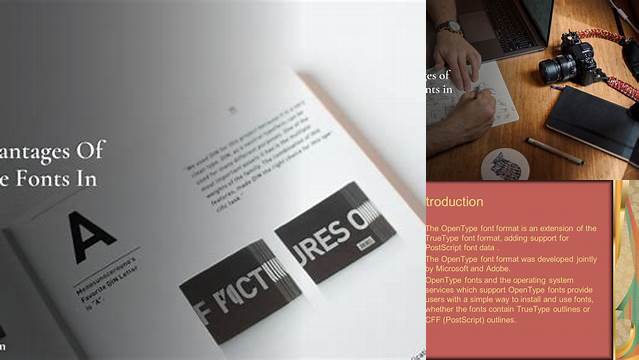
OpenType Fonts: Meaning, Uses, And Advantages
Hey guys! Ever wondered what those .otf files are that you see when downloading fonts? Let's dive into the world of OpenType fonts and explore what they mean, how they're used, and why they're so awesome. Get ready to become a font expert!
What is OpenType Font Technology?
OpenType fonts are a big deal in the world of typography. Think of them as the next-generation font format, building upon older formats like TrueType. But what exactly is OpenType font technology? It's basically a digital font format developed by Microsoft and Adobe. The cool thing about OpenType fonts is that they can contain either PostScript outlines or TrueType outlines. This means they’re super versatile and can be used on different operating systems without any hassle. Plus, they support a much larger character set compared to older formats, allowing for more glyphs, ligatures, and other fancy typographic features.
So, OpenType fonts aren't just about making text look pretty; they're about making it more functional and expressive. They help designers achieve a higher level of typographic sophistication, which is why they're the go-to choice for professional design projects. The technology behind OpenType fonts is continually evolving, with new features and improvements being added to meet the demands of modern design.
The History and Evolution of OpenType Fonts
To really understand OpenType fonts meaning, it’s helpful to know where they came from. The history of OpenType fonts dates back to the mid-1990s when Microsoft and Adobe teamed up to create a font format that could overcome the limitations of existing formats like TrueType and Type 1. TrueType was great, but it lacked advanced typographic features, while Type 1 fonts had these features but weren't cross-platform compatible. OpenType fonts were designed to bridge this gap.
Over the years, OpenType fonts have evolved significantly. Early versions focused on basic cross-platform compatibility and expanded character sets. As technology advanced, OpenType fonts incorporated more sophisticated features like ligatures, contextual alternates, and stylistic sets. These enhancements allowed designers to create more refined and nuanced typography. The development of OpenType fonts has been a collaborative effort, with contributions from font foundries, software developers, and typographic experts. This continuous evolution ensures that OpenType fonts remain at the forefront of digital typography.
Key Features and Characteristics of OpenType Fonts
Okay, let's get into the nitty-gritty of OpenType fonts meaning. What are the key features that make them stand out? First off, they support a massive character set. This means you can include all sorts of characters, symbols, and glyphs in your font, which is especially useful for multilingual typography. Secondly, OpenType fonts can contain advanced typographic features like ligatures (where two or more letters are joined together), contextual alternates (where the shape of a letter changes depending on the surrounding letters), and stylistic sets (which allow you to apply different design variations to your font).
Another cool feature of OpenType fonts is their cross-platform compatibility. They work seamlessly on both Windows and macOS, so you don't have to worry about font issues when sharing files. OpenType fonts also support both PostScript and TrueType outlines, giving you flexibility in how your font is rendered. All these features combine to make OpenType fonts a powerful tool for designers and typographers, allowing them to create stunning and sophisticated typography.
Benefits of Using OpenType Fonts in Design
Why should you care about OpenType fonts meaning in design? Well, the benefits are huge! For starters, OpenType fonts offer superior typographic control. With features like ligatures, contextual alternates, and stylistic sets, you can fine-tune the appearance of your text to achieve the perfect look. This level of control is especially important for branding, advertising, and other high-profile design projects.
OpenType fonts also improve readability. Ligatures and contextual alternates can make text flow more smoothly, reducing distractions and enhancing the overall reading experience. Plus, OpenType fonts support a wide range of languages and character sets, making them ideal for international projects. And let's not forget about cross-platform compatibility. With OpenType fonts, you can be confident that your fonts will look the same on both Windows and macOS. In short, using OpenType fonts can elevate your design work to the next level.
OpenType vs. TrueType: Understanding the Differences
So, OpenType fonts meaning is pretty clear, but how do they stack up against TrueType fonts? TrueType was the dominant font format for many years, and it's still widely used today. However, OpenType fonts offer several advantages over TrueType. One of the biggest differences is the character set. OpenType fonts can support a much larger number of characters than TrueType fonts, allowing for more glyphs, symbols, and ligatures.
Another key difference is the support for advanced typographic features. OpenType fonts include features like contextual alternates and stylistic sets, which are not available in TrueType fonts. These features give designers more control over the appearance of their text. OpenType fonts also offer better cross-platform compatibility and can contain either PostScript or TrueType outlines. While TrueType fonts are still a viable option for many projects, OpenType fonts are generally preferred for professional design work due to their superior features and capabilities.
How to Identify and Install OpenType Fonts
Identifying and installing OpenType fonts meaning is super easy. OpenType fonts typically have a .otf file extension, while TrueType fonts have a .ttf extension. When you download a font, look for the .otf file to identify it as an OpenType font. Installing OpenType fonts is just as simple. On Windows, you can right-click the .otf file and select "Install." On macOS, you can double-click the file, and it will open in Font Book, where you can click "Install Font."
Once the font is installed, it will be available in your design software, like Adobe Photoshop, Illustrator, or InDesign. Just select the font from the font menu and start using it in your projects. If you're having trouble finding the font, make sure to restart your design software after installing it. With OpenType fonts, you'll have access to a wide range of typographic features and glyphs, so take some time to explore what the font has to offer.
Using OpenType Features: Ligatures, Alternates, and More
One of the coolest things about OpenType fonts meaning is the ability to use advanced typographic features like ligatures, alternates, and stylistic sets. Ligatures are special characters that combine two or more letters into a single glyph. For example, the "fi" ligature combines the letters "f" and "i" into a single, more visually appealing character. Alternates are different versions of a character that you can use to add variety to your text. Contextual alternates change the shape of a character depending on the surrounding letters, while stylistic alternates allow you to choose from different design variations.
To use these features, you'll need to access the OpenType panel in your design software. In Adobe Photoshop, Illustrator, and InDesign, you can find the OpenType panel under the "Window" menu. From there, you can select the ligatures, alternates, and stylistic sets that you want to use. Experiment with different OpenType features to see how they can enhance your typography. With a little practice, you'll be creating stunning and sophisticated designs in no time.
OpenType Font File Structure Explained
Alright, let’s peek under the hood and talk about the OpenType fonts meaning file structure. Think of an OpenType font file as a container that holds all the information needed to display the font correctly. This includes glyph outlines, kerning pairs, hinting data, and OpenType layout features. The file structure is organized into tables, each responsible for storing specific types of data. For example, the glyf table contains the glyph outlines, while the kern table stores kerning information.
The OpenType fonts layout features are stored in the GSUB (Glyph Substitution) and GPOS (Glyph Positioning) tables. These tables define how glyphs should be substituted or positioned to create ligatures, alternates, and other advanced typographic effects. Understanding the OpenType font file structure can be helpful for font developers and designers who want to customize or troubleshoot fonts. While you don't need to be an expert in file structures to use OpenType fonts, knowing the basics can give you a deeper appreciation for the technology behind them.
OpenType Font Formats: CFF vs. TrueType Outlines
When we talk about OpenType fonts meaning, it’s crucial to understand the two main outline formats they use: CFF (Compact Font Format) and TrueType outlines. CFF, also known as Type 2 outlines, is a PostScript-based format that is more compact and efficient than TrueType outlines. It’s often preferred for fonts that require complex curves and precise rendering.
TrueType outlines, on the other hand, use quadratic Bézier curves to define glyph shapes. They are simpler than CFF outlines but can still produce high-quality results. OpenType fonts can contain either CFF or TrueType outlines, giving font developers the flexibility to choose the format that best suits their needs. Both formats have their strengths and weaknesses, and the choice between them often depends on the specific requirements of the font. For most users, the outline format doesn't matter much, as both CFF and TrueType OpenType fonts will work seamlessly in design software.
OpenType Font Licensing: What You Need to Know
Before you start using OpenType fonts meaning in your projects, it's important to understand font licensing. Font licenses dictate how you can use a font, including whether you can use it for commercial purposes, embed it in documents, or modify it. Font licenses vary widely, so it's essential to read the license agreement carefully before using a font.
Some OpenType fonts are available under open-source licenses, which allow you to use, modify, and distribute the font freely. Others are sold under commercial licenses, which may restrict how you can use the font. For example, some commercial licenses limit the number of users who can use the font or prohibit embedding the font in certain types of documents. Always check the license agreement to ensure that you are using the font legally. If you're unsure about the terms of a font license, it's best to contact the font foundry or designer for clarification.
OpenType Font Editors: Tools for Creating and Modifying Fonts
If you're feeling adventurous and want to create your own OpenType fonts meaning, or modify existing ones, you'll need a font editor. Font editors are specialized software applications that allow you to design, edit, and manage fonts. There are many font editors available, ranging from free and open-source options to professional-grade tools.
Some popular font editors include FontForge (free and open-source), Glyphs (commercial), and RoboFont (commercial). These editors provide a wide range of tools for creating glyph outlines, adding kerning pairs, and implementing OpenType features. They also allow you to import and export fonts in various formats, including OpenType, TrueType, and PostScript. Creating a font from scratch can be a complex and time-consuming process, but with the right tools and a little patience, you can create unique and beautiful OpenType fonts that reflect your personal style.
Best Practices for Choosing and Using OpenType Fonts
Choosing the right OpenType fonts meaning for your project can make a big difference in the overall look and feel of your design. Here are some best practices to keep in mind. First, consider the purpose of your design. Are you creating a logo, a website, or a printed document? The font you choose should be appropriate for the medium and the message you're trying to convey.
Next, think about readability. Choose a font that is easy to read, especially for body text. Avoid fonts that are too decorative or have unusual letterforms. Also, pay attention to kerning and tracking. Make sure the letters are spaced evenly and consistently. Finally, don't be afraid to experiment. Try out different fonts and OpenType features to see what works best for your design. With a little experimentation, you can find the perfect OpenType font to enhance your project.
OpenType Fonts in Web Design: Optimizing for Performance
Using OpenType fonts meaning in web design can add a touch of elegance and sophistication to your site. However, it's important to optimize your fonts for performance to ensure that your site loads quickly and smoothly. Large font files can slow down your site, so it's essential to choose fonts that are optimized for the web.
One way to optimize OpenType fonts is to use web font formats like WOFF (Web Open Font Format) and WOFF2. These formats are specifically designed for the web and offer better compression and performance than traditional OpenType fonts. Another way to optimize your fonts is to subset them. Subsetting involves removing unused characters from the font file, reducing its size. You can also use font loading techniques like font-display to control how fonts are loaded on your site. By following these tips, you can use OpenType fonts in web design without sacrificing performance.
OpenType Variable Fonts: The Future of Typography
OpenType fonts meaning have been around for a while, but have you heard of OpenType Variable Fonts? Variable Fonts are like the superheroes of typography. Instead of having separate font files for different weights, styles, and widths, Variable Fonts pack all that information into a single file. This means smaller file sizes and more flexibility for designers.
With Variable Fonts, you can adjust the font's weight, width, and other parameters on the fly, creating custom typography that perfectly matches your design. OpenType Variable Fonts are still relatively new, but they're quickly gaining popularity as designers and developers discover their potential. They represent the future of typography, offering unprecedented control and flexibility. If you're serious about typography, you need to check out OpenType Variable Fonts.
Troubleshooting Common OpenType Font Issues
Even with the best OpenType fonts meaning, you might run into some issues from time to time. One common problem is font rendering issues, where the font doesn't display correctly in your design software or on the web. This can be caused by a variety of factors, including font corruption, software bugs, or compatibility issues.
If you're experiencing font rendering issues, try clearing your font cache, updating your design software, or using a different font format. Another common issue is missing glyphs, where certain characters or symbols don't appear in the font. This can happen if the font doesn't support the characters you're trying to use. If you're missing glyphs, try using a different font that supports the required characters, or create your own custom glyphs using a font editor. By troubleshooting common OpenType font issues, you can keep your designs looking their best.
The Role of OpenType Fonts in Branding and Visual Identity
OpenType fonts meaning play a crucial role in branding and visual identity. Your choice of font can communicate a lot about your brand, including its personality, values, and target audience. A well-chosen font can help your brand stand out from the competition and create a lasting impression.
When choosing OpenType fonts for your brand, consider your brand's personality. Are you modern and innovative, or traditional and trustworthy? Choose fonts that reflect these qualities. Also, think about your target audience. What fonts will appeal to them? Finally, make sure your fonts are consistent across all your branding materials, including your logo, website, and marketing materials. By using OpenType fonts strategically, you can create a strong and cohesive visual identity for your brand.
OpenType Fonts and Accessibility: Making Typography Inclusive
When we think about OpenType fonts meaning, we often focus on aesthetics and design. But OpenType fonts also play a role in accessibility, ensuring that typography is inclusive for everyone, including people with disabilities. Accessible typography is designed to be easy to read and understand for people with visual impairments, dyslexia, and other reading difficulties.
To make your typography more accessible, choose fonts with clear and simple letterforms, avoid decorative fonts, and use sufficient contrast between the text and background. You can also use OpenType features like stylistic alternates to create more legible versions of certain characters. By following these guidelines, you can create typography that is both beautiful and accessible, ensuring that everyone can enjoy your designs.
Exploring Different Styles and Classifications of OpenType Fonts
Just like there are countless styles of clothing, there are also countless styles of OpenType fonts meaning. From classic serif fonts to modern sans-serif fonts, there's an OpenType font for every design project. Serif fonts have small decorative strokes at the end of each letter, while sans-serif fonts do not.
Other common font classifications include script fonts, which mimic handwriting; display fonts, which are designed for headlines and titles; and monospace fonts, which have the same width for each letter. When choosing an OpenType font for your project, consider the style and classification of the font. Choose a font that matches the tone and style of your design. Don't be afraid to experiment with different fonts to find the perfect match.
The Impact of OpenType Fonts on Print Design
OpenType fonts meaning have a significant impact on print design. In the world of print, precision and quality are key, and OpenType fonts deliver on both fronts. With their advanced features and superior rendering, OpenType fonts ensure that your printed materials look sharp and professional.
One of the biggest advantages of OpenType fonts in print design is their support for ligatures, alternates, and other typographic enhancements. These features allow you to fine-tune the appearance of your text, creating a polished and refined look. OpenType fonts also offer better compatibility with printing devices, ensuring that your fonts are reproduced accurately and consistently. Whether you're designing brochures, magazines, or books, OpenType fonts are an essential tool for achieving high-quality results in print.
OpenType Fonts and Mobile App Design: Ensuring Readability on Small Screens
Designing for mobile apps presents unique challenges, especially when it comes to typography. Small screens and varying resolutions require careful consideration of font choices and OpenType fonts meaning. The goal is to ensure readability and legibility, even on the smallest devices.
When choosing OpenType fonts for mobile app design, prioritize clarity and simplicity. Avoid fonts with overly decorative or complex letterforms. Choose fonts that are optimized for screen rendering, with clear and crisp outlines. Also, pay attention to font size and line height. Make sure your text is large enough to be easily read, and that the lines of text are spaced appropriately. By following these tips, you can create typography that is both beautiful and functional in your mobile app designs.
OpenType Fonts in Game Design: Creating Immersive User Interfaces
In game design, OpenType fonts meaning play a crucial role in creating immersive user interfaces. The fonts you choose can set the tone and style of your game, and they can also impact the player's experience. A well-chosen font can enhance the game's atmosphere and make the user interface more engaging.
When selecting OpenType fonts for game design, consider the genre and setting of your game. Choose fonts that are appropriate for the game's theme. For example, a fantasy game might use a script font or a decorative font, while a sci-fi game might use a modern sans-serif font. Also, make sure your fonts are legible and easy to read, even in small sizes. By using OpenType fonts strategically, you can create user interfaces that are both visually appealing and functional in your game designs.
Exploring Uncommon and Experimental OpenType Font Designs
If you're looking to push the boundaries of typography, OpenType fonts meaning offer a wealth of opportunities for experimentation. There are many uncommon and experimental OpenType font designs that break the mold and challenge conventional typography.
These fonts might feature unusual letterforms, unconventional spacing, or innovative OpenType features. Some experimental fonts even incorporate animation or interactivity. By exploring these unconventional designs, you can discover new and exciting ways to use typography in your projects. Just be sure to use these fonts sparingly, as they may not be appropriate for all situations. But when used effectively, experimental OpenType fonts can add a unique and memorable touch to your designs.
OpenType Fonts and Data Visualization: Enhancing Clarity and Understanding
Data visualization is all about presenting information in a clear and understandable way. OpenType fonts meaning can play a crucial role in enhancing the clarity and understanding of your data visualizations. The right font can make your charts, graphs, and maps more legible and accessible.
When choosing OpenType fonts for data visualization, prioritize clarity and simplicity. Avoid fonts with overly decorative or complex letterforms. Choose fonts that are easy to read, even in small sizes. Also, pay attention to kerning and tracking. Make sure the letters are spaced evenly and consistently. By using OpenType fonts effectively, you can create data visualizations that are both informative and visually appealing.
OpenType Fonts and Motion Graphics: Adding Dynamic Typography to Animations
Motion graphics are all about bringing designs to life through animation. OpenType fonts meaning can play a crucial role in adding dynamic typography to your motion graphics. The right font can enhance the visual appeal of your animations and make them more engaging.
When selecting OpenType fonts for motion graphics, consider the style and tone of your animation. Choose fonts that match the overall aesthetic. Also, think about how the font will move and animate. Will it be static, or will it change over time? Experiment with different OpenType features like stylistic alternates and ligatures to create unique and dynamic typography. By using OpenType fonts creatively, you can add a professional touch to your motion graphics.
OpenType Fonts in E-books and Digital Publishing: Optimizing the Reading Experience
In the world of e-books and digital publishing, OpenType fonts meaning are essential for optimizing the reading experience. The right font can make your e-books more legible and enjoyable to read, especially on small screens.
When choosing OpenType fonts for e-books, prioritize readability and legibility. Choose fonts with clear and simple letterforms, and avoid decorative fonts that can distract the reader. Also, pay attention to font size and line height. Make sure your text is large enough to be easily read, and that the lines of text are spaced appropriately. Consider using OpenType features like ligatures and kerning to improve the overall appearance of your text. By using OpenType fonts effectively, you can create e-books that are both beautiful and easy to read.
The Future of OpenType: Innovations and Emerging Trends
The world of OpenType fonts meaning is constantly evolving, with new innovations and emerging trends shaping the future of typography. One of the most exciting trends is the rise of variable fonts, which allow for unprecedented flexibility and control over font design.
Other emerging trends include the use of artificial intelligence in font design, the development of more sophisticated OpenType features, and the increasing importance of accessibility in typography. As technology continues to advance, OpenType fonts will continue to evolve, offering new and exciting possibilities for designers and typographers. By staying up-to-date with the latest trends, you can ensure that your typography is always cutting-edge.
Resources for Learning More About OpenType Fonts
Want to dive deeper into the world of OpenType fonts meaning? There are plenty of resources available to help you learn more. Online tutorials, books, and articles can provide you with a wealth of information about OpenType fonts, their features, and how to use them effectively.
Some popular resources include the Adobe Type website, which offers a wealth of information about typography and OpenType fonts; the Microsoft Typography website, which provides technical documentation about OpenType fonts; and various online forums and communities where you can connect with other designers and typographers. By taking advantage of these resources, you can expand your knowledge of OpenType fonts and become a typography expert.